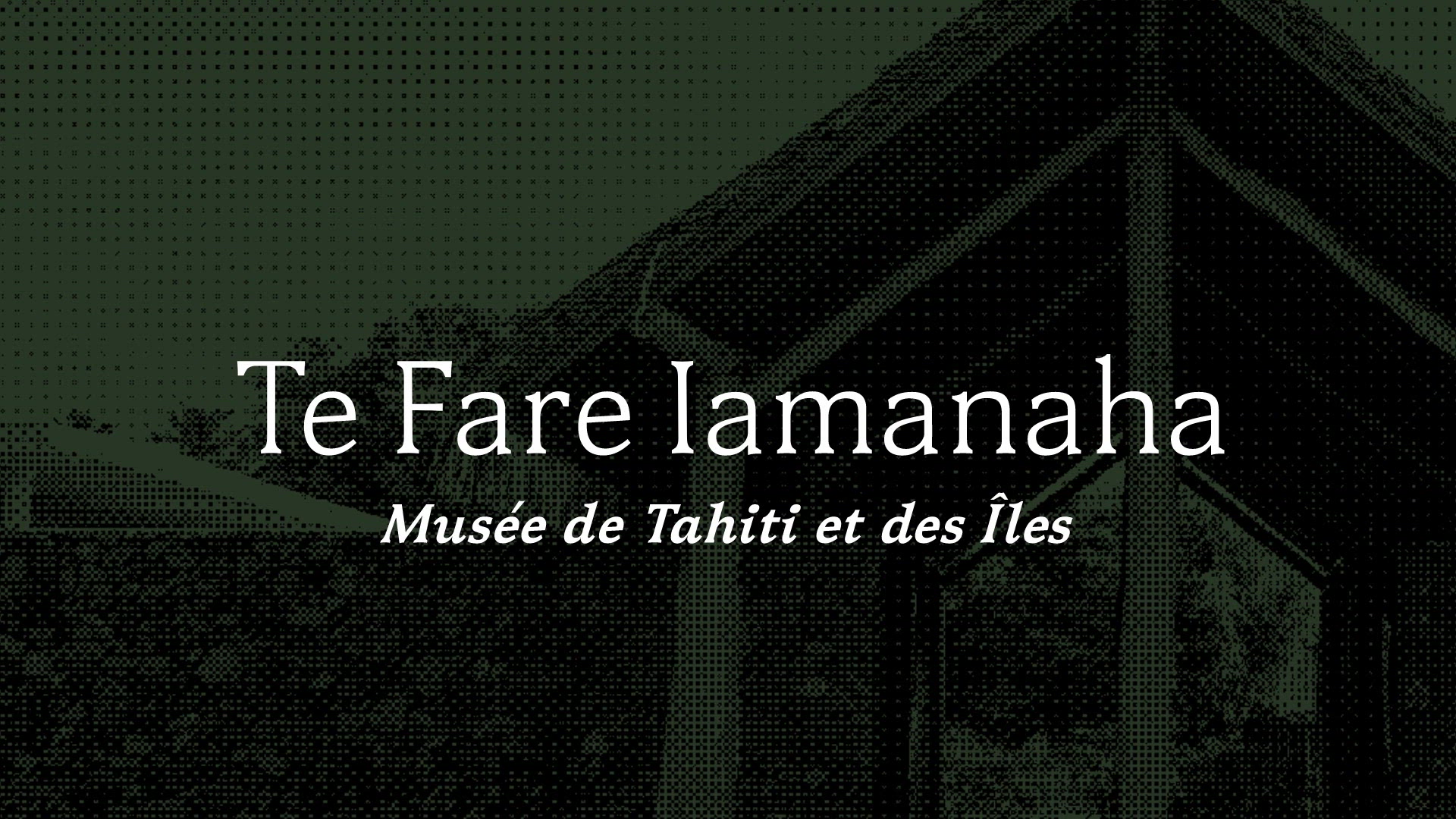
Fare Typeface
Fare (meaning ‘home’ in Tahitian) is a variable humanist typeface completed for Le Musée de Tahiti et des Îles | Te Fare Iamanaha (‘Museum of Tahiti and the Islands’). This multifaceted typeface is designed for the museum’s exhibitions, wayfinding and marketing materials. Its features represent the museum’s artifacts and architecture, blending the spirit of Polynesian culture with the complexity of French colonialism.
Fare is first and foremost a text-face, used to write long paragraphs and informational pieces. After further process, it was decided to include small precise details and features. At text-size these details disappear and become unnoticeable — but when up-scaled, these details shine through turning it into a display-face. These features are found in its sans, semi-sans, and serif versions, as well as everywhere in between as it is variable from sans to serif.
Throughout the design process, I had many discussions with instructors whether its characteristics were out of appropriation or appreciation of Tahitian and Southern Polynesian culture. In the end the typeface tows a fine line of appreciation, just like the museum's architecture and the artifacts within. Like the museum, this typeface tells a story of the islands long natural history, cultural richness, and its colonial tensions — creating a design that is truly bespoke for this cultural institution.
Fare is variable from sans to serif and thin to heavy, with a matching italic that is also variable from thin to heavy.
It includes special glyphs and alternates like navigational arrows specifically for museum wayfinding.